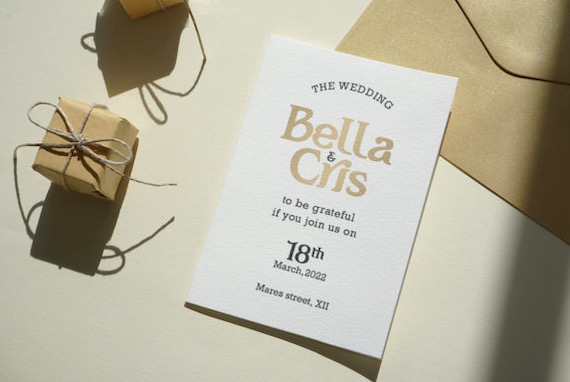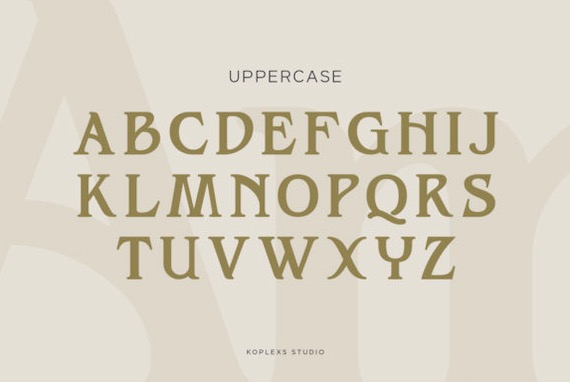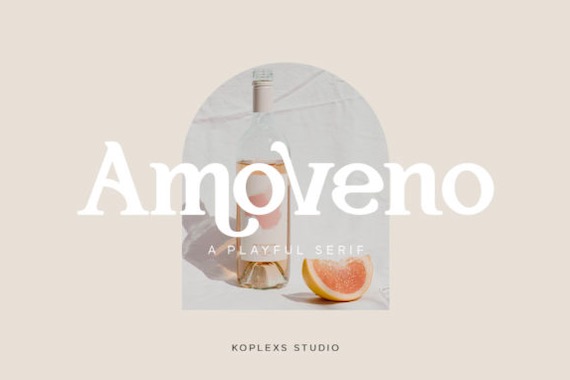
Amoveno Font is a funny, delicate, and playful serif typeface that was created and shared by Koplexs Studio. Its versatility makes this font become more flexible and the perfect look for a vast range of project ideas, from branding, logo design, clothing branding, product packaging, and magazine headers to wedding invitations, poster design, and so much more. Amoveno font is PUA encoded, which means you can access all of the glyphs and swashes with ease!
Amoveno Serif Font